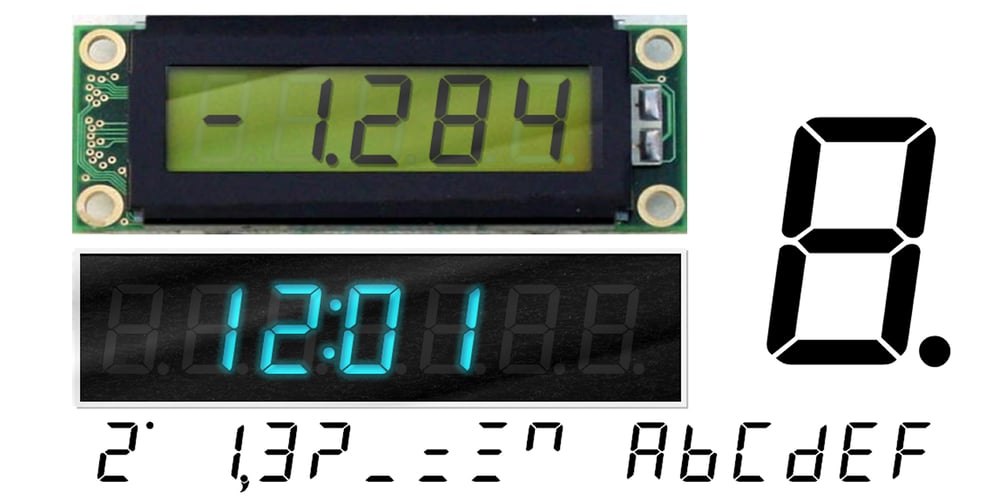
AF LEDSeg3 Font Family was designed by Peter Cross and published by Fortune-Fonts.com Limited. AF LEDSeg3 contains 1 styles and family package options. * For when you need the most realistic looking electronic display. * See User Manuals Main advantages: – Spacing between characters does not change when entering a decimal point or colon between them. – Custom characters can be produced by selecting any combination of segments to be displayed. Low cost electronic displays have a fixed number of segments that can be turned on or off to represent different symbols. A digital watch would be the most common example. Fonts typically available for depicting electronic displays are often in the artistic style of these common LED or LCD displays. They provide the look-and-feel, but fall short when technical accuracy is required. Failure to represent an accurate and consistent representation of the real thing can be a cringe-worthy experience for the product design and marketing team, or even the hobbyist for that matter. To solve this problem, Fortune Fonts has released a range of fonts that accurately depict the displays typically found on low cost electronic devices: watches, answering machines, car stereos, alarm clocks, microwaves and toys. These fonts come with numbers, letters and symbols predefined. However, they also allow you to create your own segment combinations for the custom symbols you need. When producing manuals, marketing material and user interfaces, accuracy is an all-or-nothing concept. Instructions in the user manual describe how to turn these fonts into realistic displays according to your own design, in the manner of the images above. By purchasing &/or using &/or distributing the fonts the buyer user and distributor (including Monotype Imaging Inc. & Monotype Imaging Hong Kong) agree to (1) indemnify & hold harmless the foundry, for any consequential, incidental, punitive or other damages of any kind resulting from the use of the deliverables including, but not limited to, loss of revenues, profits, goodwill, savings, due to; including, but not limited to, failure of the deliverables to perform it’s described function, or the deliverable’s infringement of patents, copyrights, trademarks, design rights, contract claims, trade secrets, or other proprietary rights of the foundry, distributor, buyer or other parties (2) not use the fonts to assist in design of, or be incorporated into, non-software displays